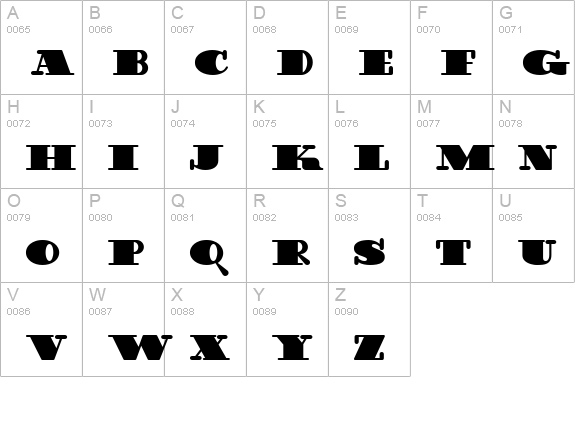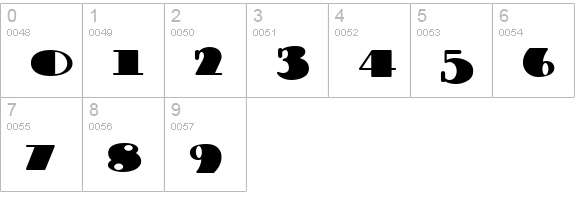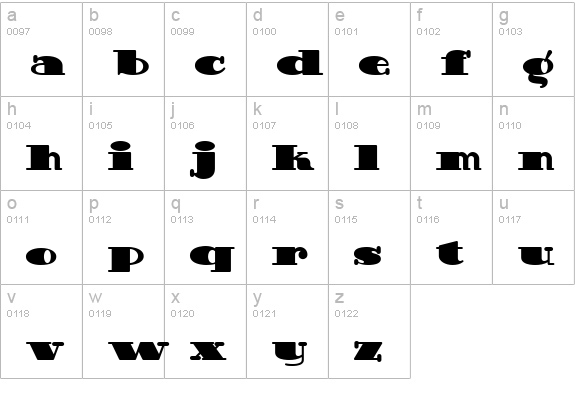
Guinness Extra Stout NF Font Details
Guinness Extra Stout NF font is a bold and robust typeface inspired by the iconic Guinness Extra Stout beer label. With its distinctive serifs and strong presence, this font exudes a sense of tradition and heritage. The classic design of Guinness Extra Stout NF font makes it perfect for creating eye-catching headlines and branding materials. Best of all, Guinness Extra Stout NF font is available for free download at FontsMarket.com. Whether you're working on a vintage-inspired project or looking to add a touch of sophistication to your designs, this font is a versatile choice that will make a lasting impression. Download Guinness Extra Stout NF font today and elevate your typography game!